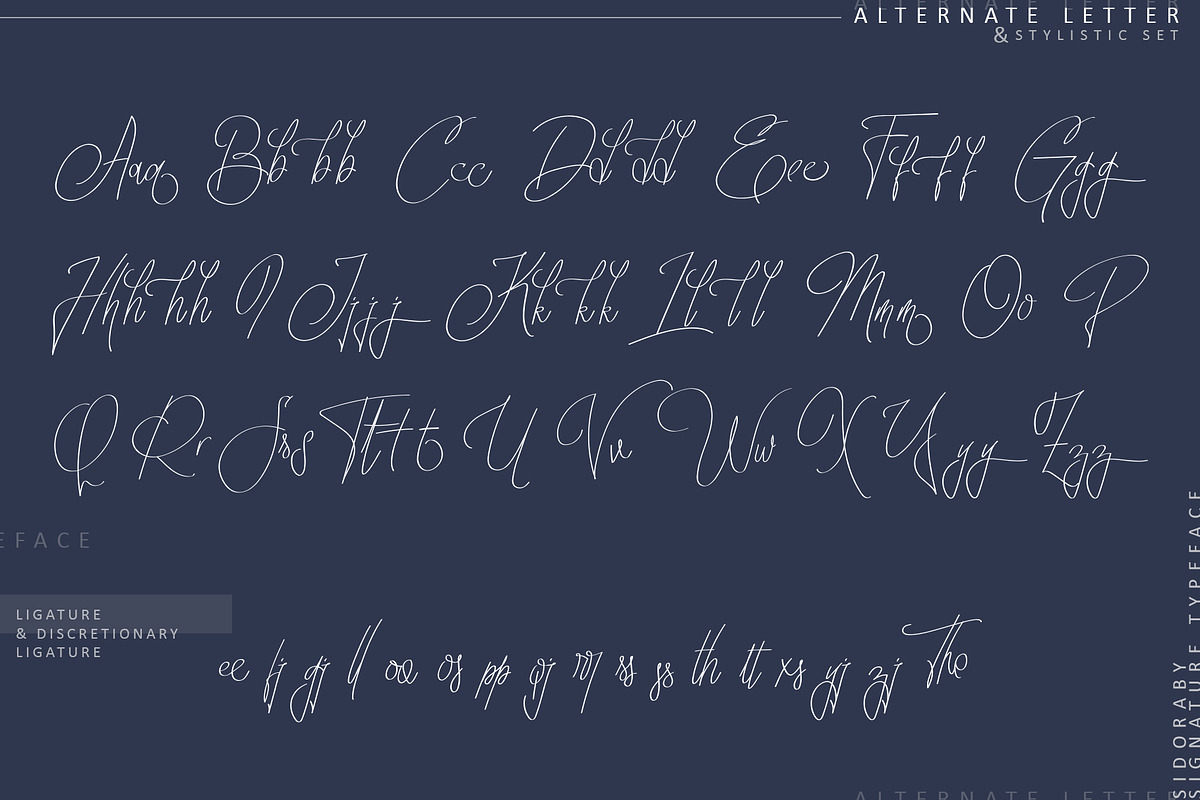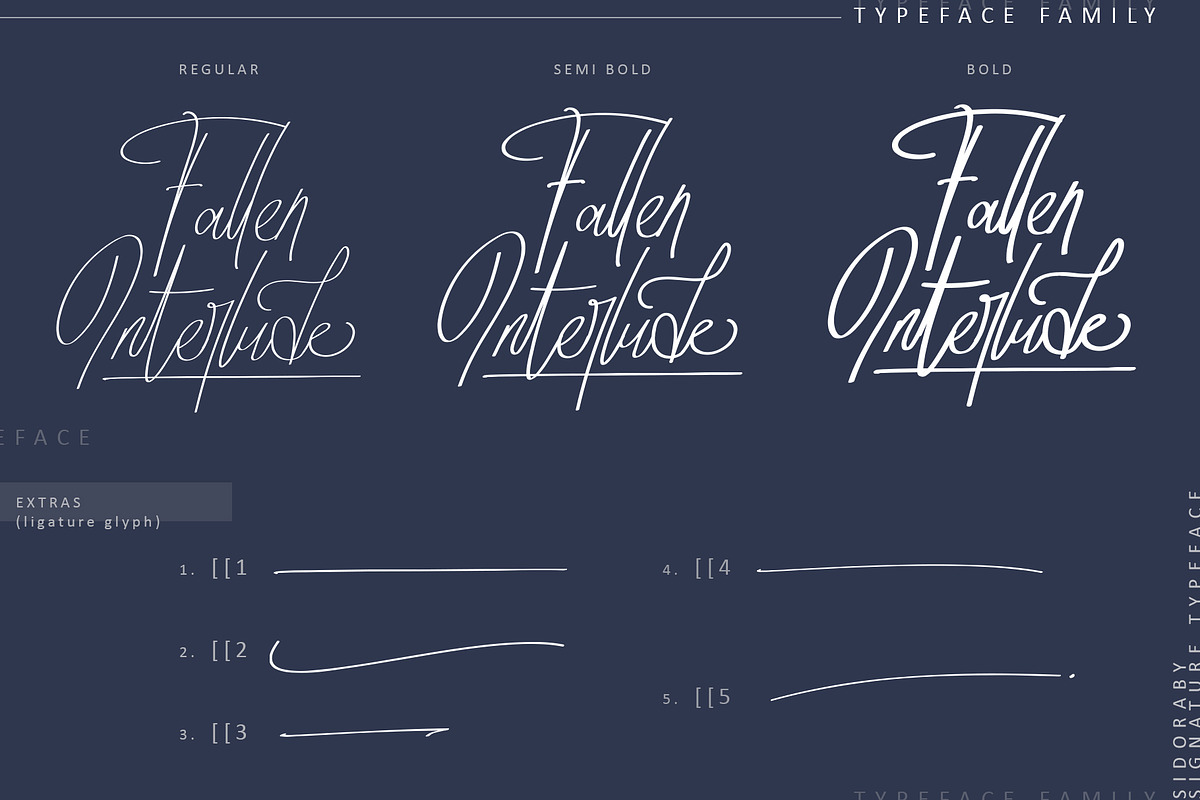
Sidoraby
SIDORABY
is a typeface with signature style taste, includes full set of gorgeous uppercase and lowercase letters, numerals, punctuation, ligatures and alternate characters, giving realistic hand-lettered style.
Sidoraby is very suitable as to make a design choice for Blogging, Social Media, Branding, Wedding Invites and Cards.
Inspired by signature hand lettering and calligraphy.
Features : Alternate Characters. Ligatures. Discretionary Ligatures. Support Multilingual Characters.